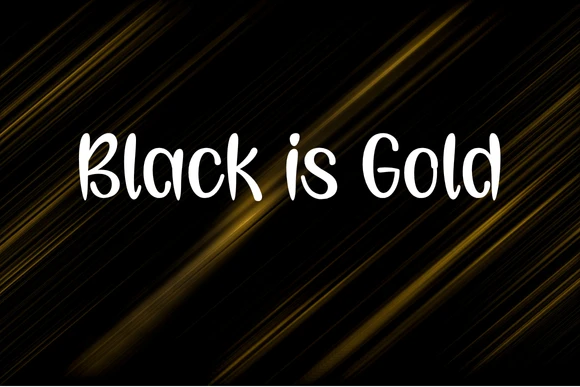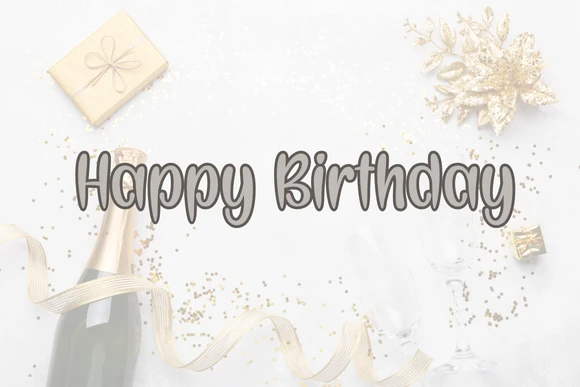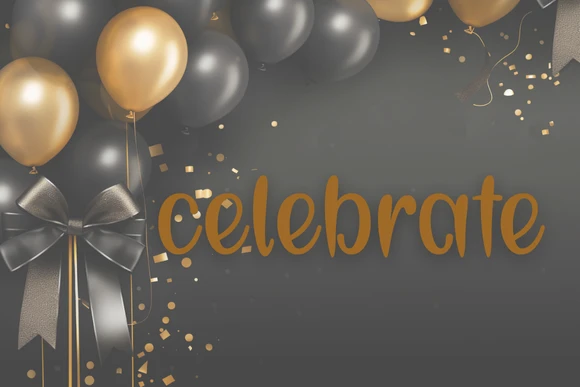
Give your designs a street-smart edge with Stay Leigt Fonts ā a bold urban handwritten display typeface inspired by street culture, graffiti lettering and modern branding. Its energetic strokes and handcrafted vibe make your text stand out on everything from apparel to posters and digital graphics.